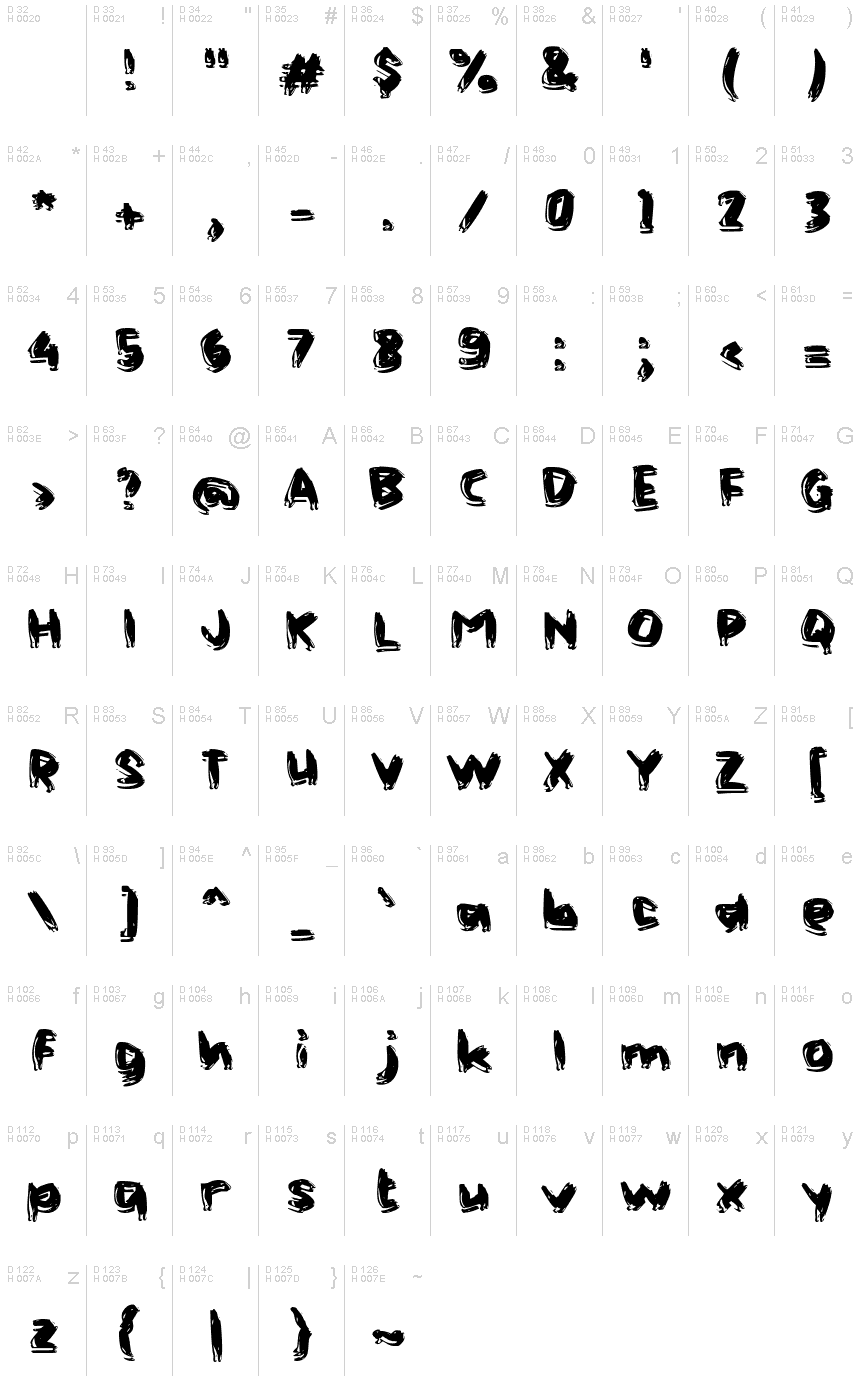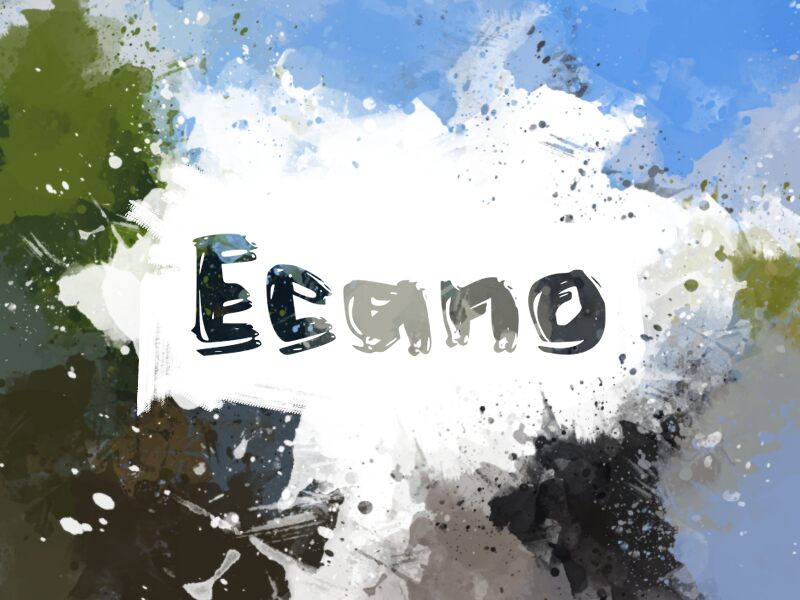
Ecano
Ecano, an edgy creation by wep, is a bold and semi-expanded display font that exudes a distinctive eroded style. With its rugged appearance and strong presence, Ecano is perfect for projects that demand attention and evoke raw emotions. Ideal for grunge album covers, vintage posters, or rebellious fashion campaigns, this font captivates viewers with its unique charm. Let Ecano make your designs stand out in the cluttered digital landscape, commanding authority and leaving a lasting impact on your audience.